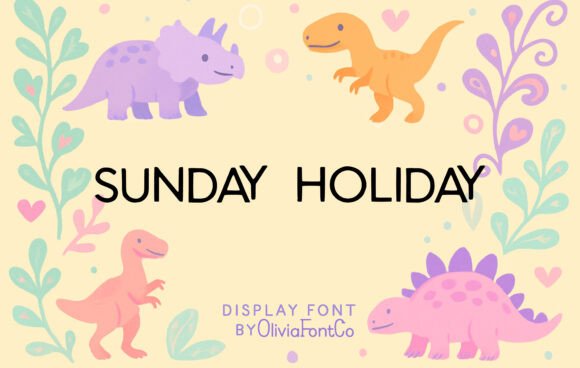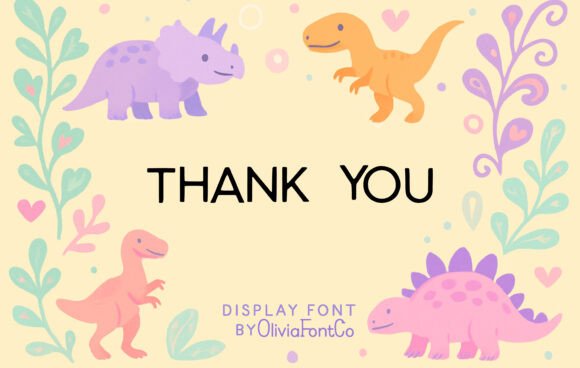
Discover the Versatility of Andre Font: Elevate Your Designs to New Heights
Are you tired of using the same old fonts in your designs? Look no further than Andre Font, a game-changing typeface that’s designed to take your creative ideas to the highest level. With its exceptional legibility and stunning visual appeal, this font is perfect for a wide range of design applications, from magazine headlines to wedding invitations, and everything in between.
The Perfect Blend of Style and Legibility
Andre Font is crafted to be a true favorite among designers and crafters alike. Its unique design ensures that it looks great as a title or body text, making it an incredibly versatile font that can be used in various contexts. Whether you’re working on a magazine layout, a t-shirt design, or a social media post, this font is sure to make your text stand out.
The possibilities are endless with Andre Font. Here are just a few ideas to get you started:
- Magazine Headlines: Use Andre Font to create eye-catching headlines that grab readers’ attention and draw them into your story.
- T-Shirts and Apparel: Add a touch of style to your t-shirt designs with this font, perfect for creating bold and eye-catching graphics.
- Social Media: Elevate your social media posts with Andre Font, making your content stand out in a crowded feed.
- Branding: Use this font to create a consistent visual identity for your brand, making it instantly recognizable.
- Wedding Invitations: Add a touch of elegance to your wedding invitations with Andre Font, perfect for formal and informal events alike.
- Cards and Stationery: Create beautiful greeting cards, business cards, and other stationery items with this stunning font.
Why Choose Andre Font?
So, what sets Andre Font apart from other fonts on the market? Here are just a few reasons why designers and crafters love this font:
- Legibility: Andre Font is designed to be easy to read, making it perfect for body text and long-form content.
- Versatility: This font can be used in a wide range of design applications, from digital to print.
- Style: With its unique design, Andre Font adds a touch of style and sophistication to any design.
Tips for Using Andre Font
To get the most out of Andre Font, here are a few tips to keep in mind:
- Experiment with Sizes: Andre Font looks great in a variety of sizes, from large headlines to smaller body text.
- Play with Colors: Try pairing Andre Font with different colors to create a unique and eye-catching design.
- Mix and Match: Combine Andre Font with other fonts to create a unique and visually appealing design.